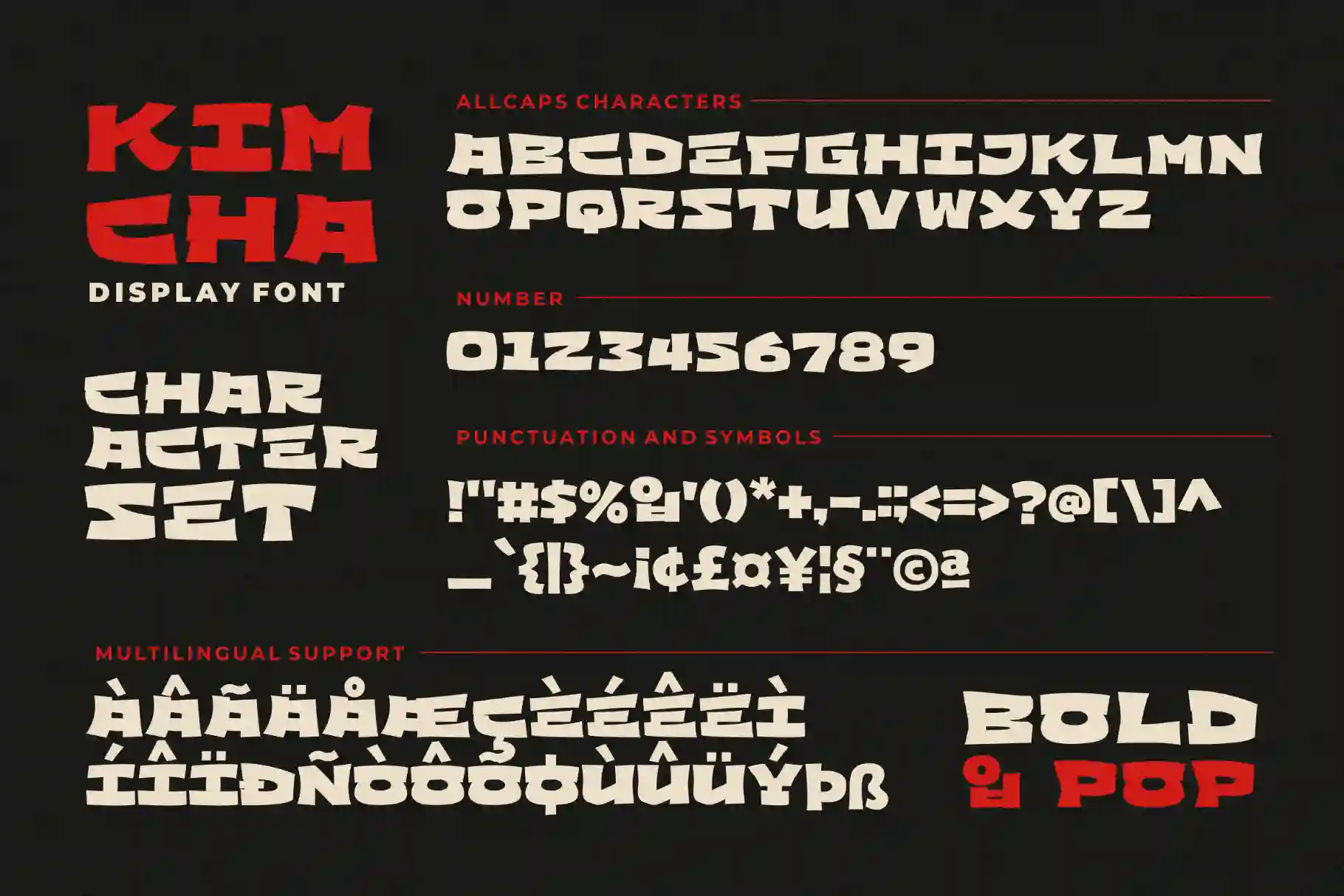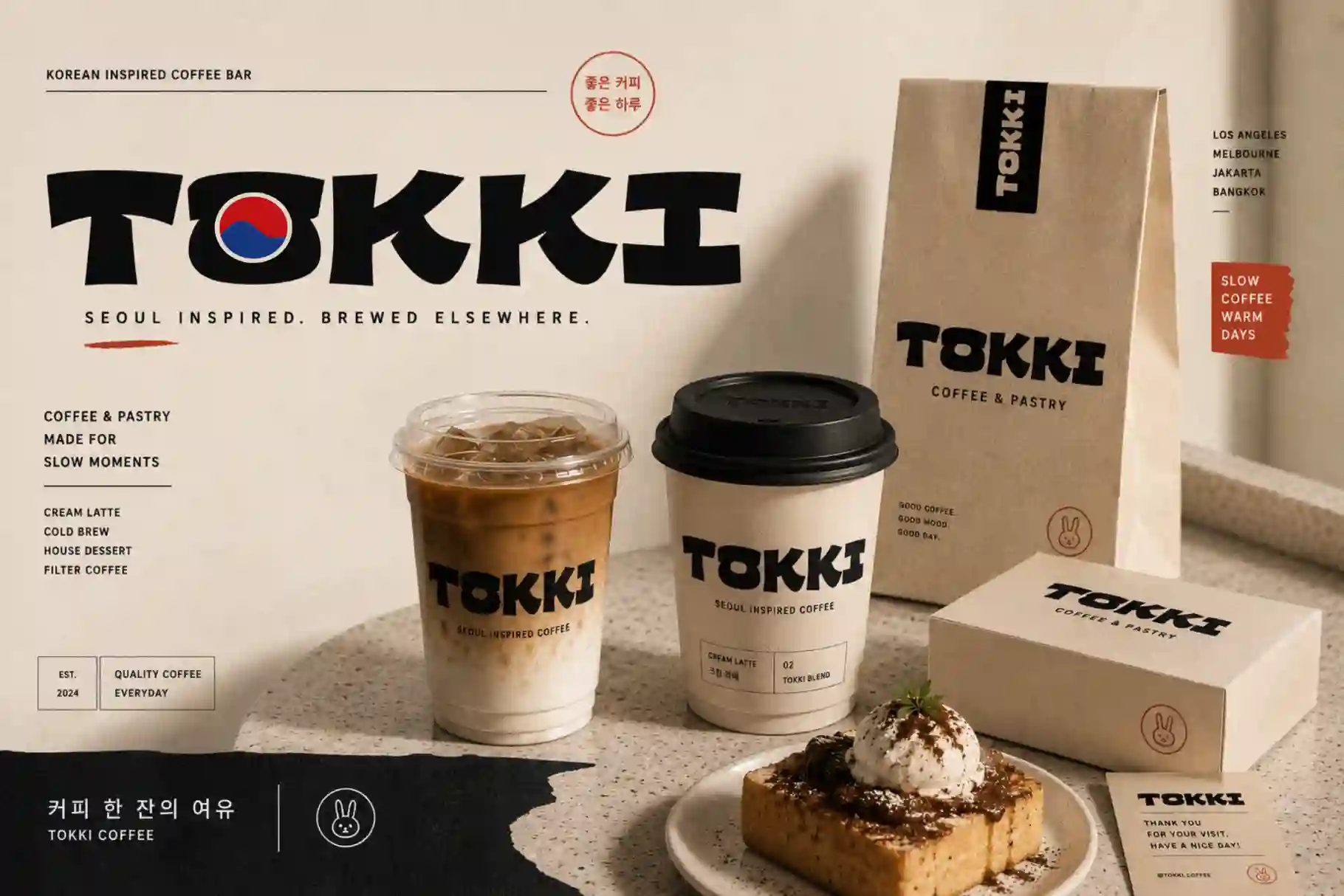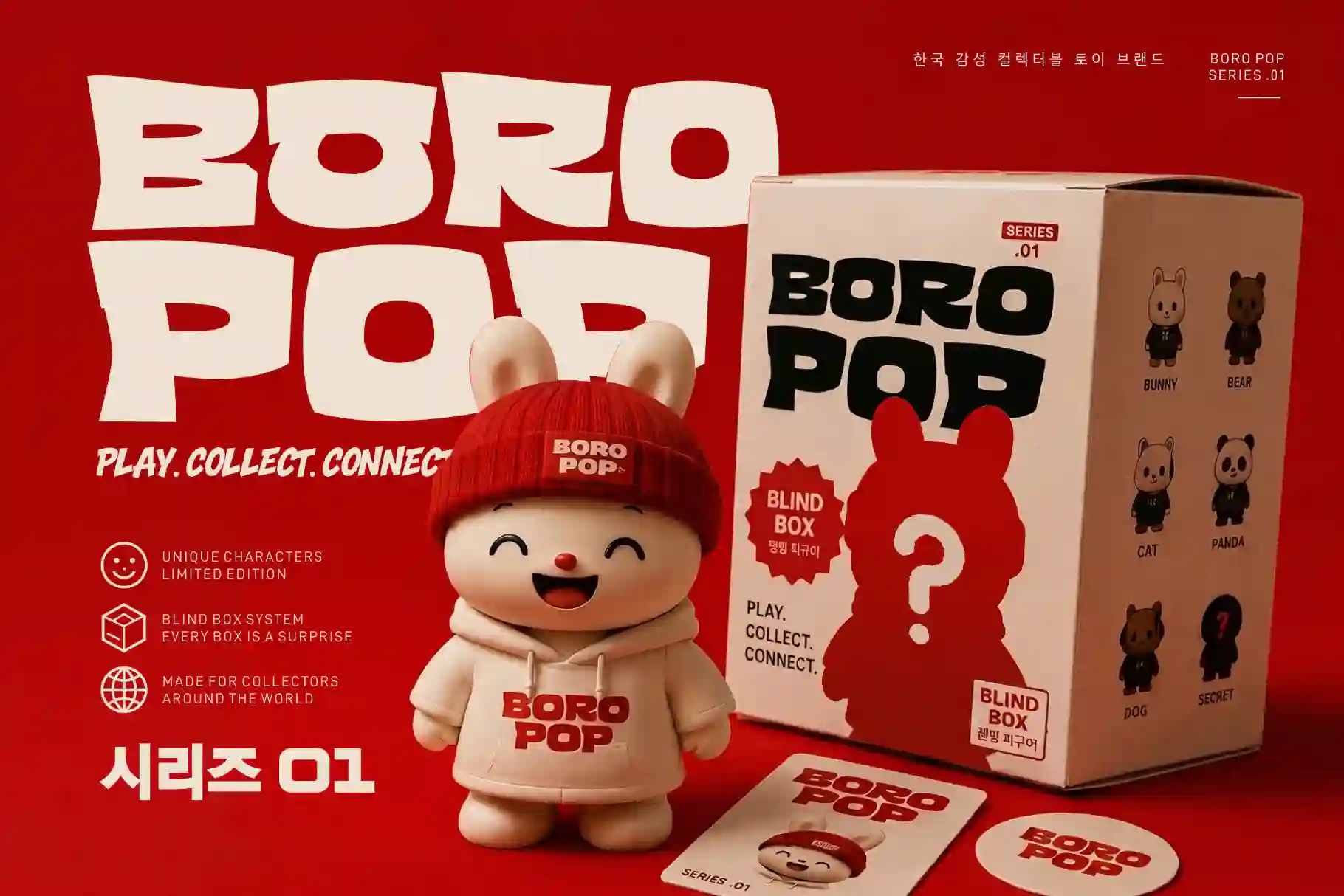
Kimcha – Korean Look Chunky Font for Bold Korean Style Design
Typography has become one of the strongest visual tools in modern branding, especially when designers want to create memorable identities with cultural influence. Kimcha – Korean Look Chunky Font is designed specifically for creators who want playful energy, bold forms, and modern Korean-inspired visuals in one powerful typeface.
This Korean look chunky font combines thick strokes, rounded geometry, and eye-catching proportions that instantly bring personality into every project. Whether you are designing café branding, Korean food packaging, YouTube thumbnails, posters, stickers, gaming assets, or social media graphics, Kimcha helps your work stand out with a unique visual flavor.
Kimcha includes ALL CAPS, numbers, punctuation, and multilingual support, making it flexible for both local and international creative projects.
Korean Look Chunky Font with Playful Energy
Kimcha is not built as a traditional display font. Instead, this Korean look chunky font captures the cheerful atmosphere often found in Korean packaging, food branding, entertainment visuals, and modern café aesthetics.
Its thick construction creates strong readability while keeping a soft personality. The rounded edges add friendliness, while the bold structure keeps the typography impactful.
Designers who need expressive titles, Korean-inspired branding, and playful packaging will find Kimcha highly adaptable for creative use.
Key Features of Kimcha – Korean Look Chunky Font
Kimcha comes with essential features that make it production-ready for professional designers.
Character Support
- ALL CAPS
- Numbers
- Punctuation
- Multilingual Support
Design Features
- Chunky Korean-inspired style
- Bold geometric appearance
- High readability
- Strong headline presence
- Friendly visual personality
- Perfect for display usage
This Korean look chunky font is created for designers who need visual impact without sacrificing clarity.
Korean Look Chunky Font for Branding Projects
Brand identity depends heavily on typography. A font can instantly communicate mood before customers even read the message.
Kimcha works beautifully as a Korean look chunky font for:
- Korean restaurant logos
- Street food packaging
- Bubble tea branding
- Café menus
- Snack labels
- Character products
- Kids packaging
- Gaming visuals
- YouTube channels
- Social media campaigns
Its playful weight creates emotional connection while maintaining professional usability.
Why Designers Love Kimcha
Designers love Kimcha because it offers a balance between personality and usability. Many display fonts become difficult to use across projects, but Kimcha remains flexible.
Reasons creatives choose this Korean look chunky font:
- Strong Korean visual influence
- Friendly chunky appearance
- Great readability in large text
- Perfect for posters and packaging
- Easy pairing with brush fonts
- Modern yet playful mood
- Excellent for social content
- Memorable logo creation
Its versatility allows designers to switch from food branding to entertainment graphics without losing visual consistency.
Korean Look Chunky Font Pairing Ideas
Kimcha becomes even more powerful when paired with complementary fonts.
Try combining it with:
Hyper Squad adds energetic brush movement that contrasts beautifully against Kimcha’s thick structure.
Roadpunks introduces rough hand-painted energy and works perfectly for posters, café visuals, and promotional graphics.
Bolde creates a cleaner modern pairing when you need balance between playful and professional design.
Mixing Kimcha with these fonts helps designers build layered typography systems while maintaining a strong Korean aesthetic.
Korean Look Chunky Font for Posters and Social Media
Social content moves quickly. Attention spans are short. Typography must grab viewers instantly.
Kimcha performs exceptionally well as a Korean look chunky font for:
- Instagram posts
- YouTube covers
- TikTok thumbnails
- Event posters
- Café promotions
- Food campaigns
- Character merchandise
- Stickers
- Motion graphics
Its bold silhouette stays visible even at smaller viewing sizes.
From food packaging and café logos to social media campaigns and poster designs, this Korean look chunky font helps creative projects become more expressive and memorable.
If you want typography that feels friendly, bold, modern, and instantly recognizable, Kimcha is ready to bring your ideas to life. Pair it with Hyper Squad, Roadpunks, or Bolde and create visuals that feel energetic, authentic, and impossible to ignore.